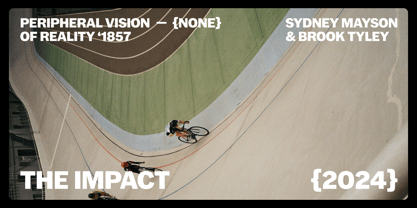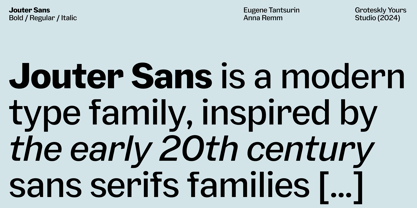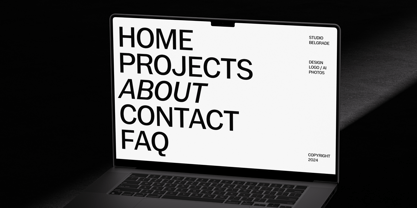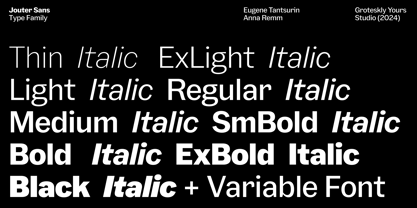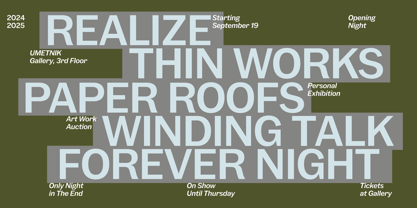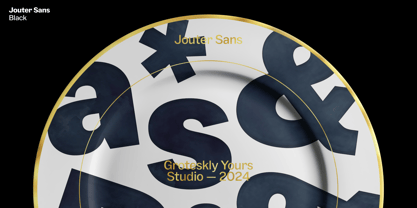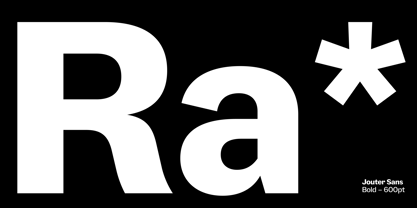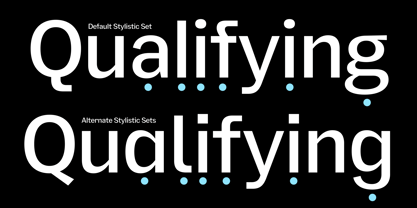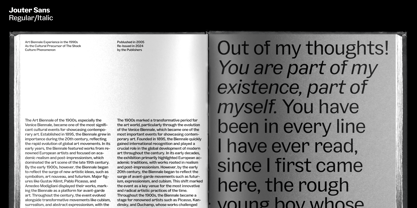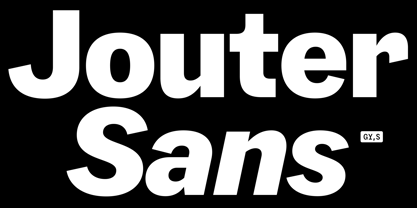
Jouter Sans
The Jouter Sans Font Family was designed by Eugene Tantsurin and published by Groteskly Yours. Jouter Sans contains 19 styles and family package options. More about this family
Jouter Sans is a sans serif family in 18 styles (9 uprights and 9 italics), inspired by early 20th-century American sans serifs. Building on this rich typographic heritage, Jouter Sans liberally reinterprets the genre, balancing historical character with a modern approach to type design, informed by the best digital type practices.
Jouter Sans embraces bold stylistic choices, featuring several idiosyncratic characters true to their historical forms. However, with multiple stylistic sets available, designers can easily opt for more neutral forms when needed. Its most prominent features—sharp contrast within letterforms and tight spacing—make it perfect for a wide range of projects, from branding to editorial design.
Jouter Sans family includes 18 styles, from Thin to Black with matching italics, as well as a variable font. With over 700 characters per font, it supports more than 200 Latin languages and offers extensive OpenType features, including stylistic sets, fractions, case-sensitive punctuation, tabular figures, and more. Carefully mastered to meet modern technical criteria, it works seamlessly for large bodies of text, titles, headlines, and beyond.
Jouter Sans is a versatile typeface that seamlessly combines historical character with a modern, function-first design philosophy.
Jouter Sans Features:
• 18 Fonts (9 Upright & 9 Italic)
• Variable Font
• 700+ characters/font
• 200+ languages supported
• Versatile OpenType Features
• Square/Round Dots Alternates
Designers: Eugene Tantsurin
Foundry: Groteskly Yours